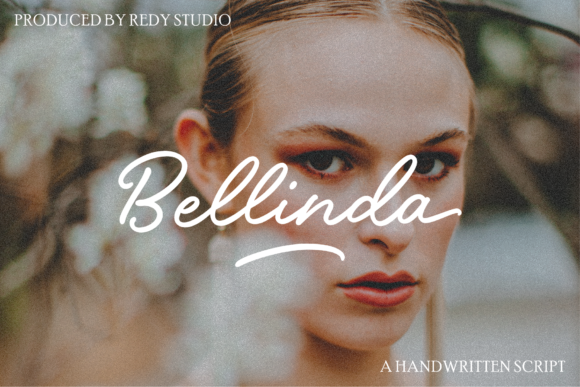
Welcome to the world of Bellinda – the ultimate modern calligraphy font for all your wedding invitation needs! Developed by RedyStudio, Bellinda is a vintage styled and delicate script font that adds a touch of elegance and sophistication to your designs.
With its unique and eye-catching design, Bellinda is perfect for any occasion that requires a touch of sophistication and class. The font is PUA encoded, which means you can access all of its glyphs and swashes with ease. This makes it the perfect choice for anyone looking to add a touch of creativity to their projects.
Whether you're designing wedding invitations, greeting cards, or any other type of print media, Bellinda is the perfect font to help you bring your creative vision to life. Its elegant and delicate design is sure to impress, and it's the perfect way to add a touch of personality and charm to any project.